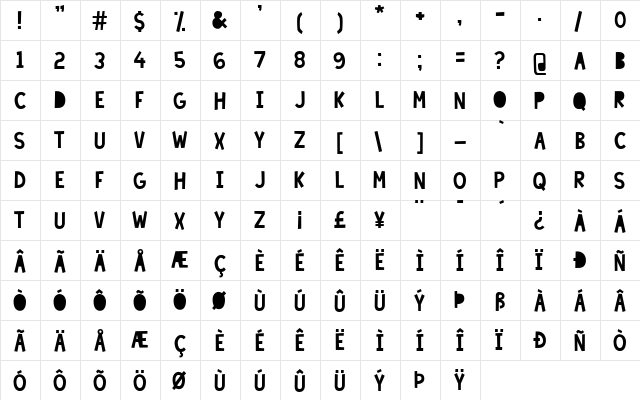
Lazy Sunday Regular
Design Context for Lazy Sunday Typeface
Lazy Sunday is a composed and adaptable typeface that performs quietly and consistently across a wide range of design contexts.